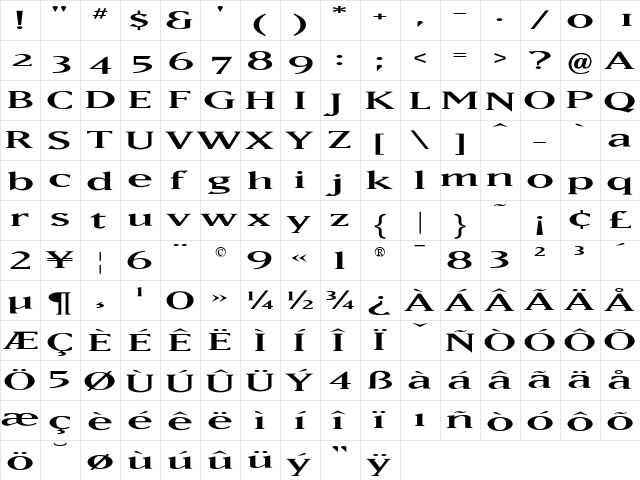
MAXBaerOpti Regular
Design Context for MAXBaerOpti Typeface
MAXBaerOpti takes a measured approach to typography — its balanced proportions and neutral character make it a reliable workhorse for both digital and print work.